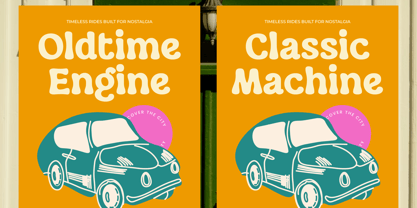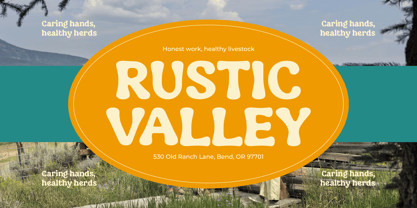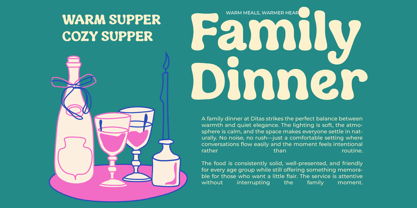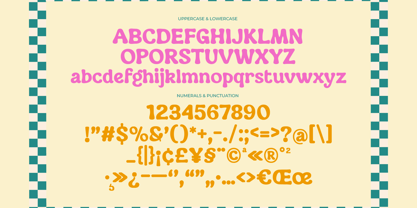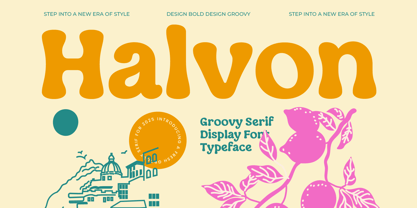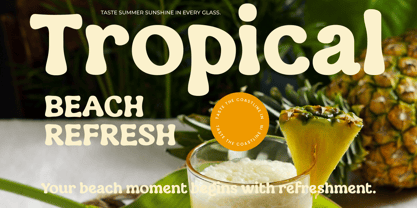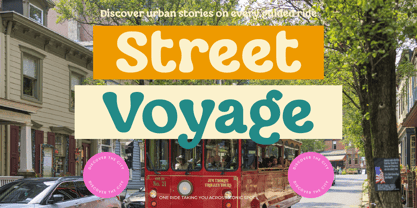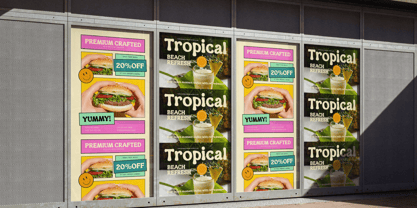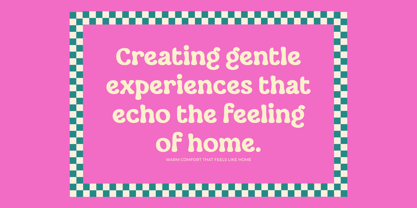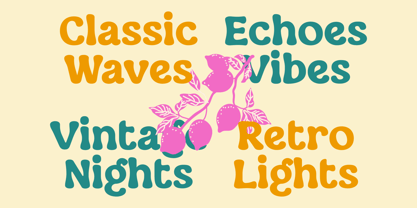
Halvon
The Halvon Font Family was designed by Edy Subiyanto and published by Jaruka Creative. Halvon contains 1 styles. More about this family
Meet Halvon: A Bold Leap into Groovy Nostalgia
Step into a new era of style with Halvon, a fresh and vibrant groovy serif display font designed to bring bold personality to your creative projects. Blending retro charm with a clean, contemporary edge, Halvon is all about making a statement while maintaining a warm, comforting vibe.
This typeface acts as a bridge between classic vintage warmth and striking, modern display aesthetics.
Key Features
• Distinctly Retro, Completely Modern: Halvon delivers a thick, pillowy, and fluid serif anatomy that instantly channels 70s nostalgia while remaining perfectly optimized for current design standards.
• Full Character Layout: As seen in the complete glyph map in Halvon, Halvon includes a comprehensive uppercase and lowercase alphabet, clean numerals, and an extensive suite of essential punctuation, symbols, and currency characters.
• Whimsical Alternates & Ligatures: Notice the gorgeous curl on the lowercase g and the fluid connections in words like "gentle" —Halvon comes packed with stylistic details that make your typography feel custom-tailored.
Made For Creative Application
Halvon is exceptionally versatile, seamlessly shifting between laid-back beach vibes, rustic charm, and sleek urban aesthetics.
• Branding & Editorial: Perfect for mastheads, large format logos, and titles. It brings immediate character to layouts like "Street Voyage" or "Family Dinner".
• Posters & Apparel: Give your merchandising an instant vintage upgrade. Its bold weight stands out flawlessly on promotional materials like the "Oldtime Engine / Classic Machine" prints.
• Packaging & Advertising: Excellent for food, beverage, and lifestyle brands looking to project a friendly, approachable, yet premium tone. See it in action on the street posters, the "Rustic Valley" emblem, and the vibrant "Tropical Beach Refresh" packaging.
Evoke the Perfect Mood
Whether you are aiming for "Classic Waves," "Retro Lights," or "Vintage Nights" , Halvon provides the soft, expressive weight you need to capture your audience's attention.
Bring maximum flavor and an undeniable groove to your digital storefront or print layouts today with Halvon!